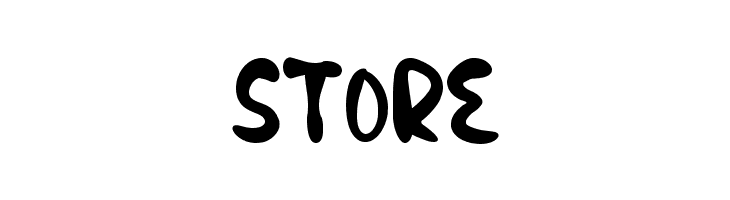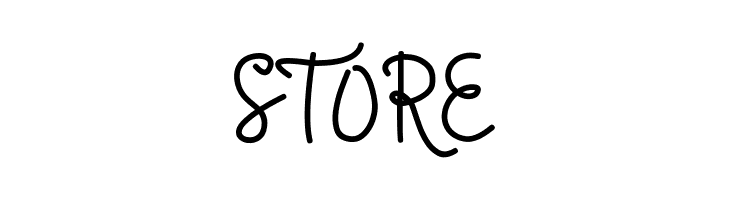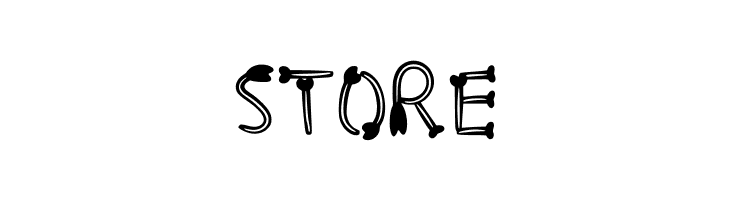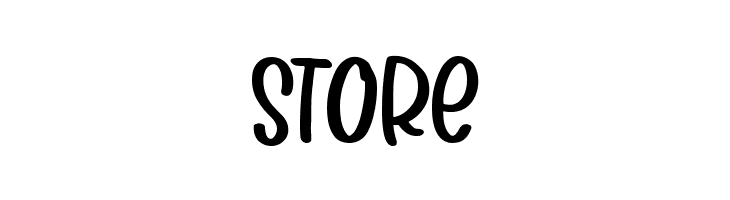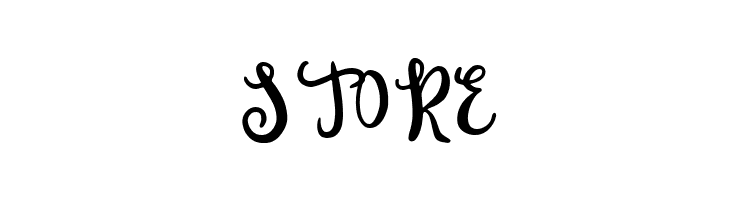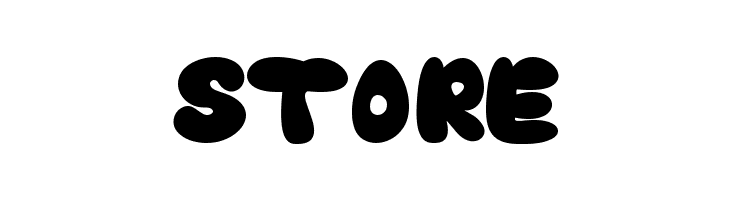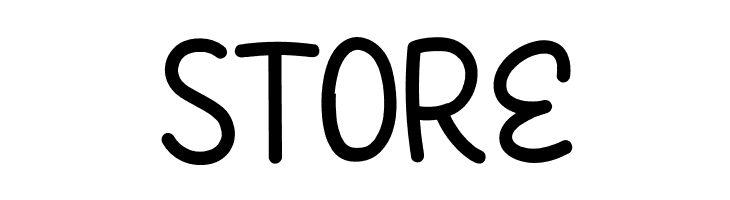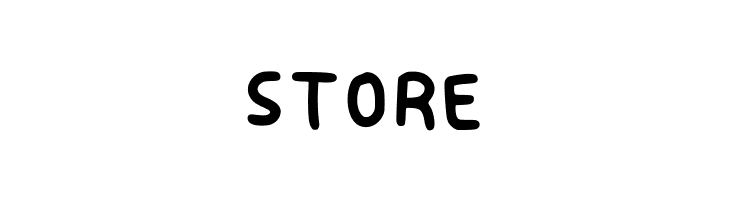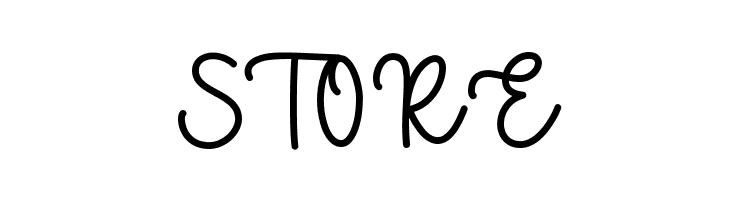
• Cutie Bunnie
A playful, hand-drawn font with bold, rounded characters.
• Cutie Day
A playful, bold script font with a whimsical, handwritten style.
• Cutie Pie 3 Regular
A playful font with heart-shaped accents, perfect for conveying warmth and love.
• Cutie Reindeer
Playful handwritten script font.
• Cutie Serene Regular
A playful, rounded font with a hand-drawn, whimsical style.
• Cutie Shark
A playful, handwritten font with smooth, rounded edges and a casual style.
• Cutie Top Regular
A bold, decorative font with star-like embellishments and a futuristic style.
• Cutie Zombie
A playful, bold font with rounded, bubbly characters.
• Cutie-Cat
• CutieDashleyRegular
A playful, handwritten font with rounded, smooth letterforms.